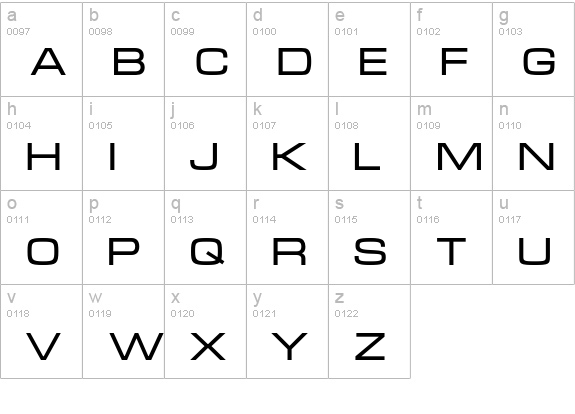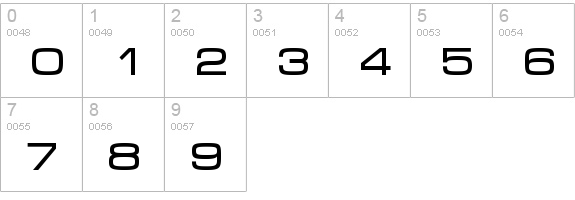
Micra Font Details
Micra font is a modern and elegant typeface that exudes sophistication and style. With its clean lines and well-balanced proportions, Micra is perfect for a wide range of design projects, from branding to editorial design. This versatile font comes in a variety of weights and styles, making it easy to create eye-catching typography for any occasion. Best of all, Micra font is completely free to download at FontsMarket.com. Whether you're a professional designer or just looking to add a touch of elegance to your personal projects, Micra is a fantastic choice that won't break the bank. Don't miss out on the opportunity to elevate your designs with this stunning font – download Micra today and start creating beautiful typography that stands out from the crowd.